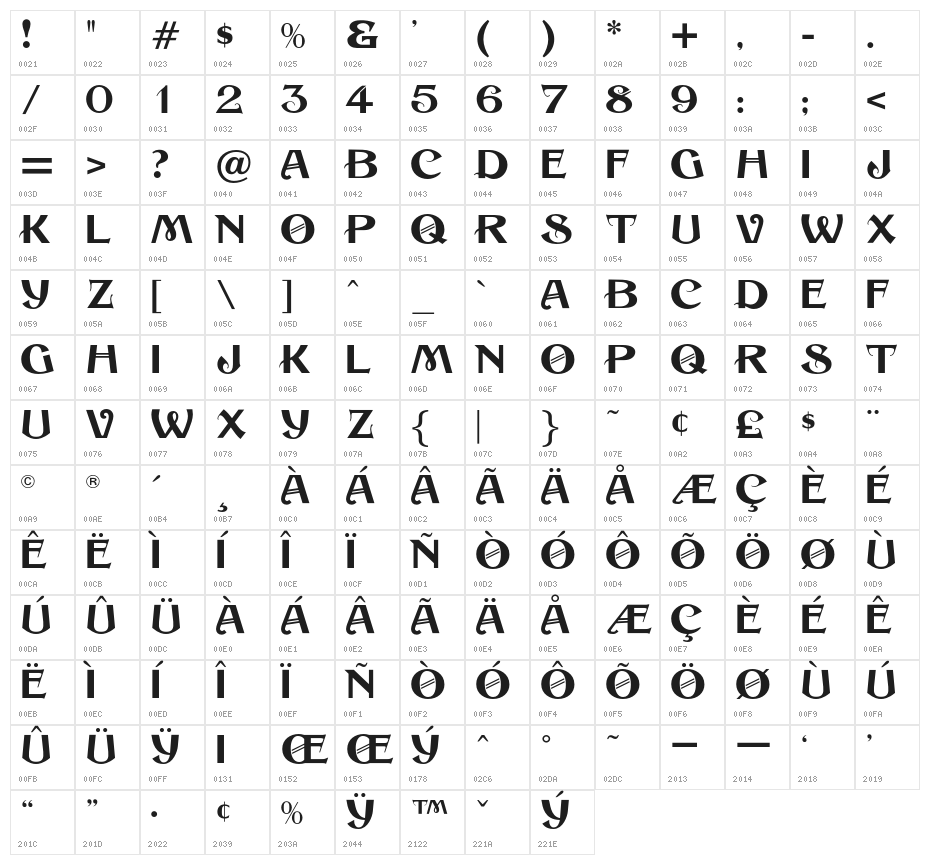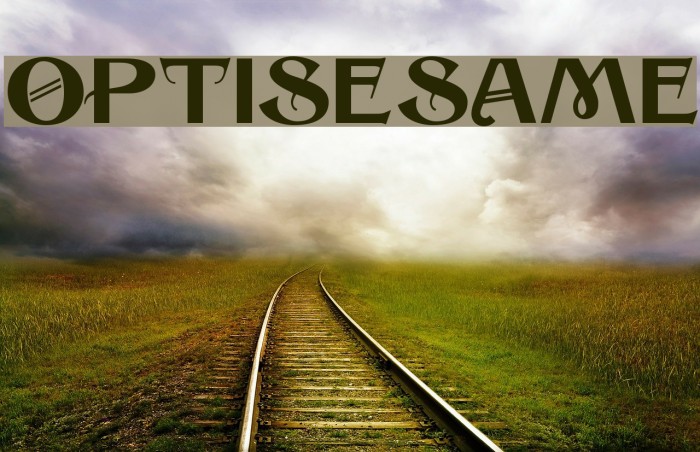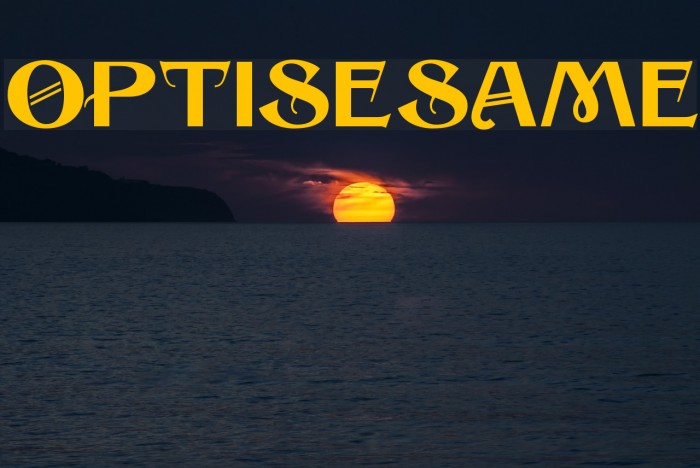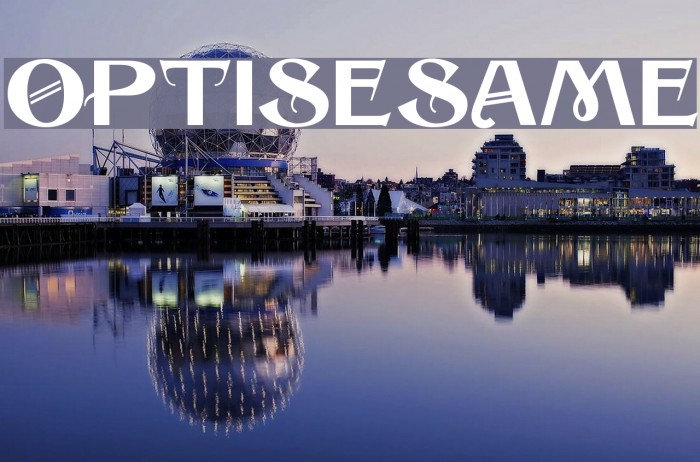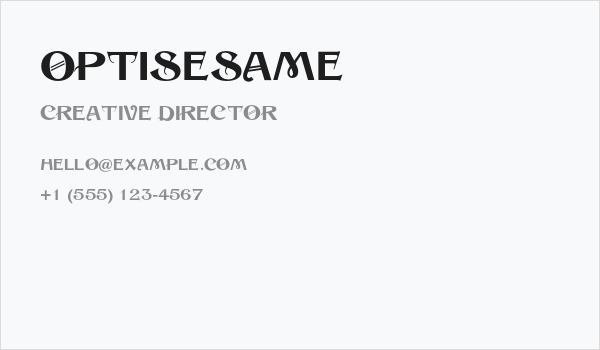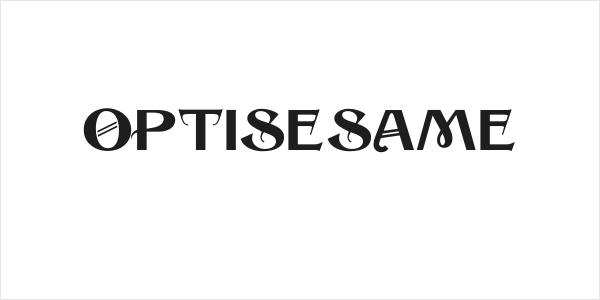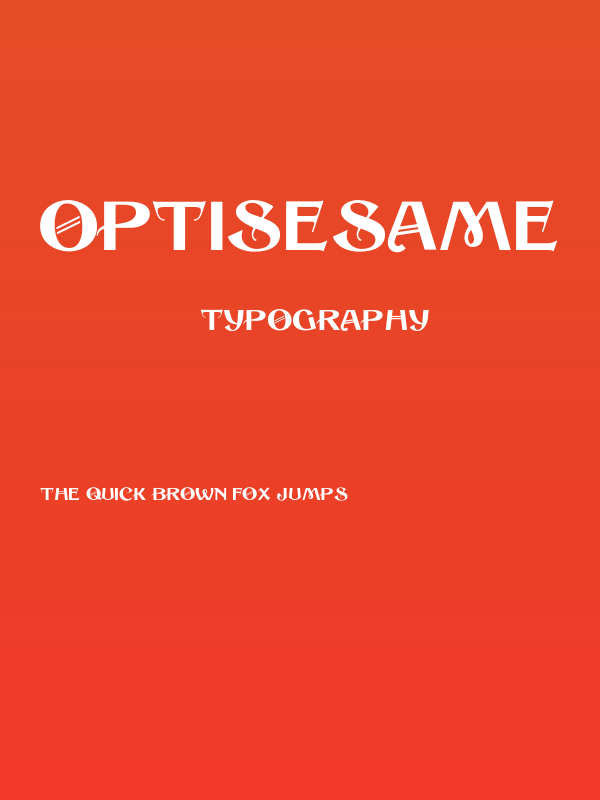
OPTISesame Font
OPTISesame Description
This font features a bold and decorative style with unique, artistic flourishes on each character. The uppercase letters have a distinct, playful twist, with some characters incorporating swirls and curves that add a whimsical touch. The lowercase letters maintain a similar decorative flair, ensuring consistency throughout the typeface. Numbers are bold and stylized, matching the overall theme. Special characters are also creatively designed, making this font suitable for eye-catching displays. The overall appearance is both modern and artistic, perfect for projects that require a standout visual element.